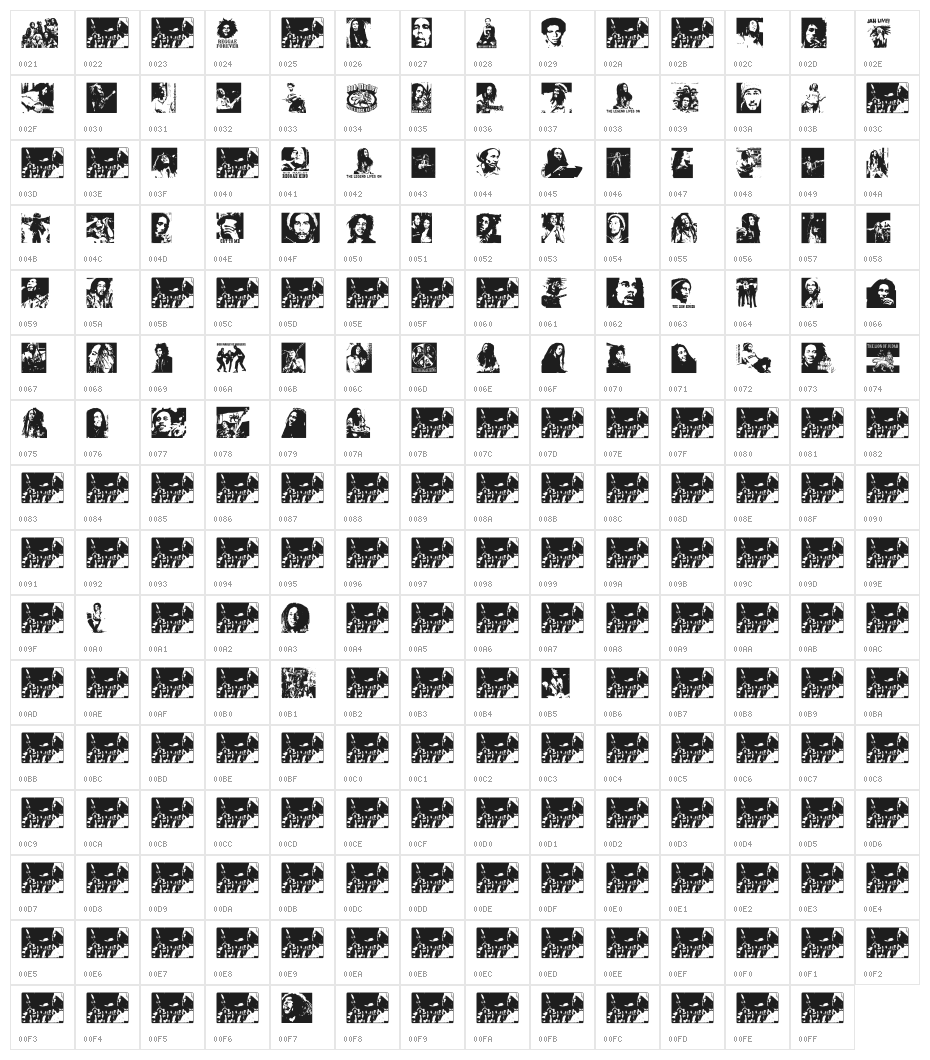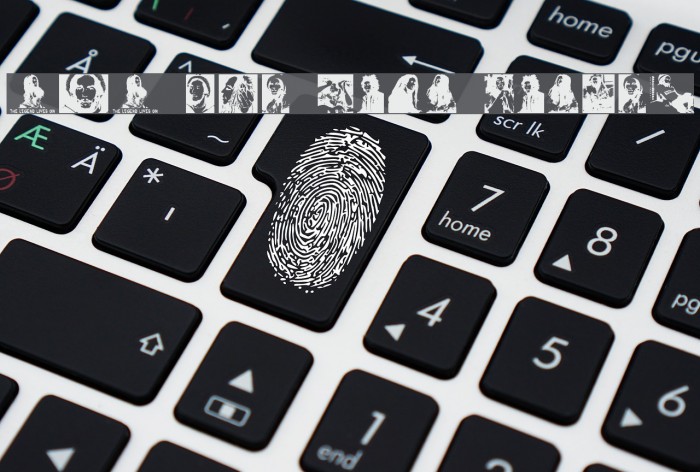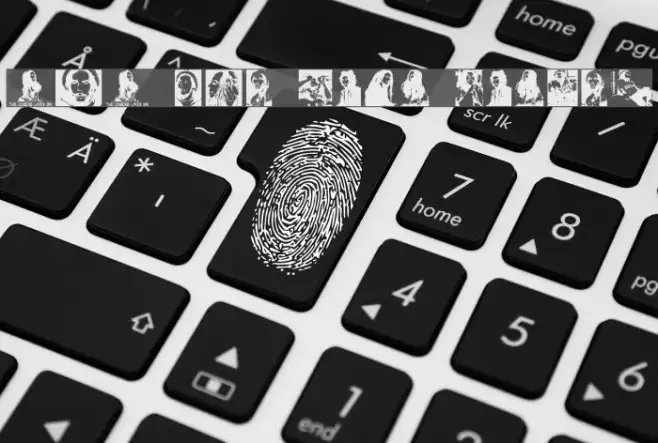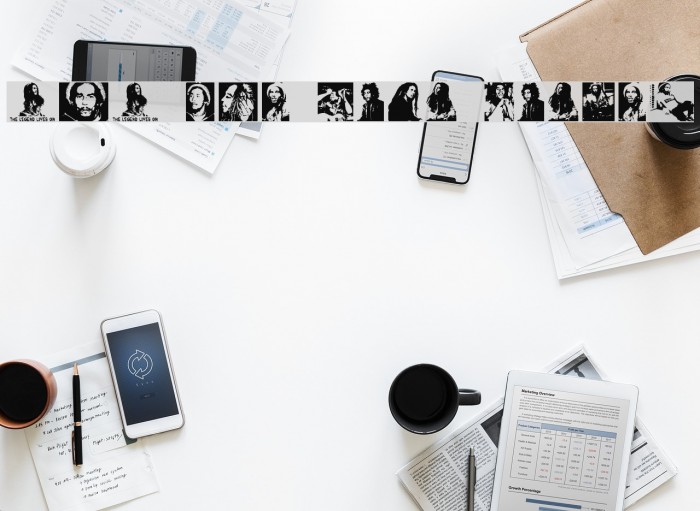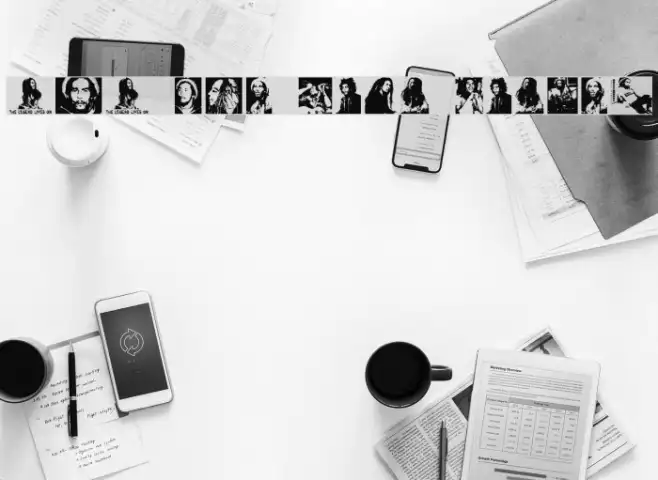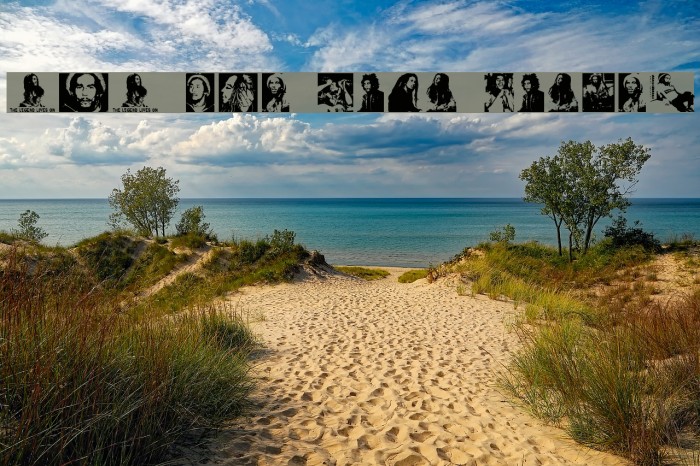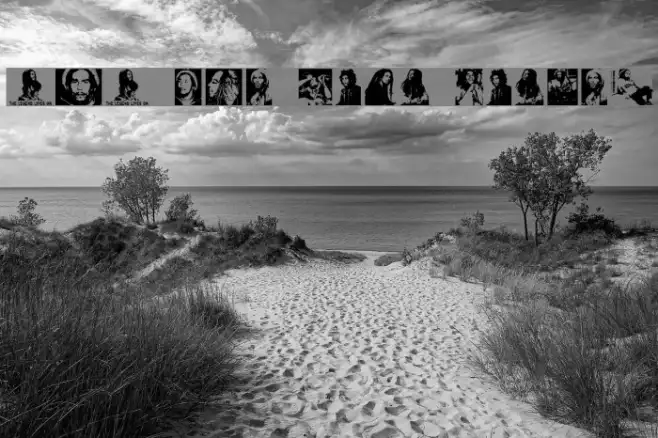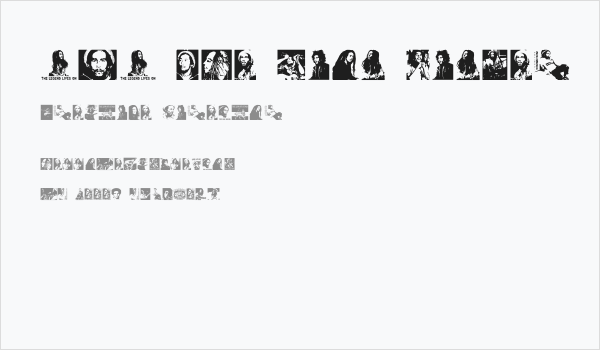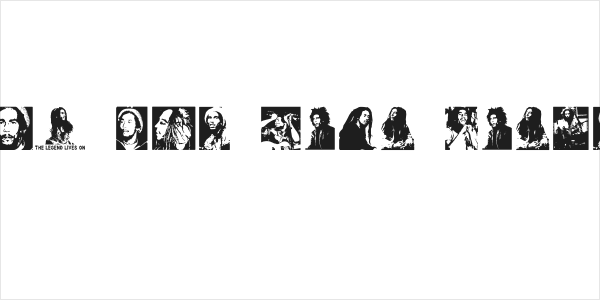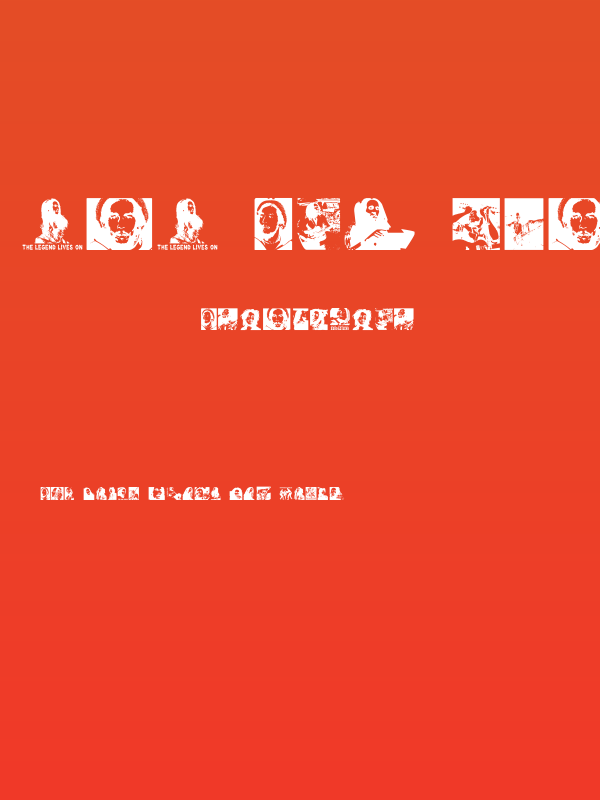
BOB The Lion Singer Font
BOB The Lion Singer Description
A decorative display font featuring high-contrast, black-and-white stencil-style images of a famous reggae musician and related iconography, with each character represented by a unique portrait or scene. The font is highly pictorial, with minimal traditional letterform structure, focusing on visual storytelling rather than legibility.
| Overall Style | Decorative, Thematic, Artistic |
| Use Case | Logos, Posters, Headlines, Themed Graphics |
| Proposed Projects | Music event posters, album covers, themed merchandise, tribute artwork, cultural festival branding. |